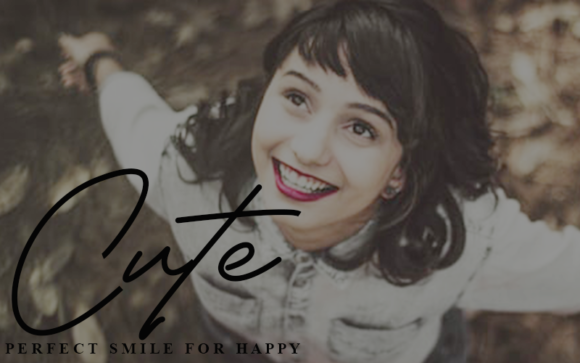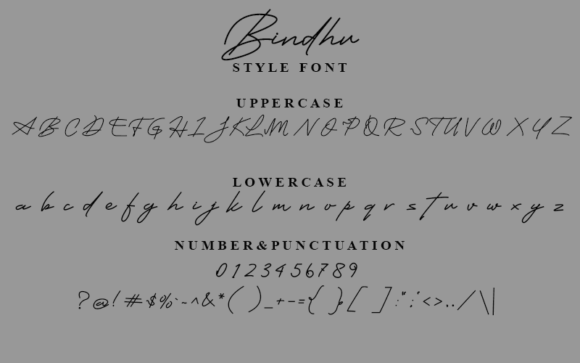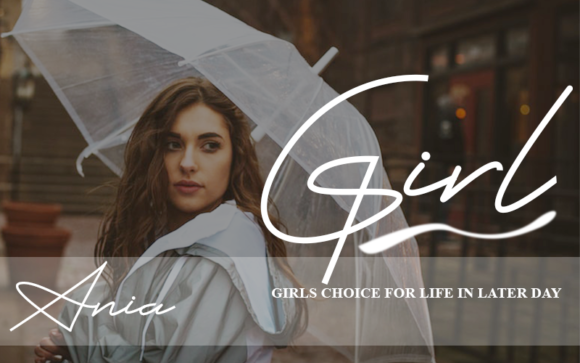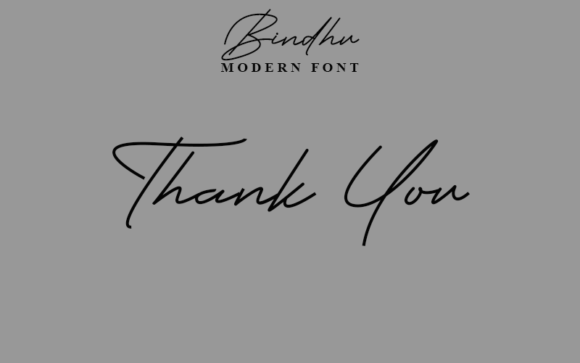
Introducing Bindhu Font: Elevate Your Crafting Projects with Luxurious Flair
Are you a designer or crafter looking to add a touch of sophistication and elegance to your projects? Look no further than the Bindhu Font, a stunning fancy flowing script font that is sure to make your creations stand out. With its unique irregular baseline, Bindhu Font brings a level of luxury and refinement to any crafting project, making it perfect for those who want to add a little extra something special to their work.
What is Bindhu Font?
Bindhu Font is a beautifully designed script font that features flowing, connected letters with an irregular baseline. This distinctive design element gives the font a sense of movement and fluidity, making it perfect for creating eye-catching titles, headings, and text elements. Whether you’re working on a crafting project, designing a logo, or creating digital content, Bindhu Font is sure to add a touch of class and sophistication.
Key Features of Bindhu Font
- Fancy flowing script font: Bindhu Font features beautiful, connected letters that flow together in a smooth, elegant motion.
- Irregular baseline: The font’s irregular baseline adds a touch of whimsy and uniqueness to the text, making it stand out from more traditional fonts.
- Luxurious feel: Bindhu Font has a distinctly luxurious feel, making it perfect for high-end crafting projects, branding, and digital content.
- Versatile: The font is versatile and can be used for a wide range of projects, from crafting and scrapbooking to logo design and digital marketing.
In conclusion, Bindhu Font is a stunning fancy flowing script font that is sure to add a touch of luxury and sophistication to any crafting project. With its unique irregular baseline and elegant, connected letters, Bindhu Font is the perfect choice for designers and crafters who want to create beautiful, eye-catching text elements. Whether you’re working on a scrapbooking project, designing a logo, or creating digital content, Bindhu Font is sure to elevate your work to the next level.